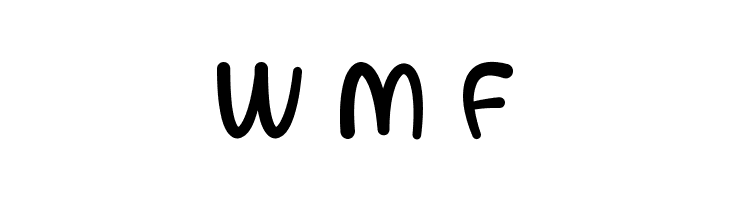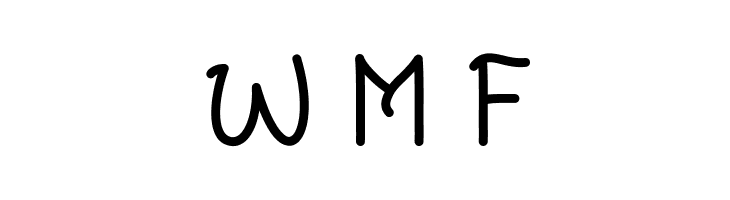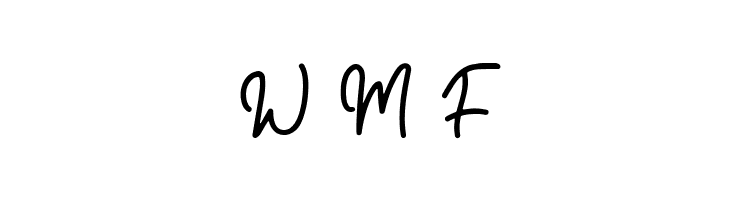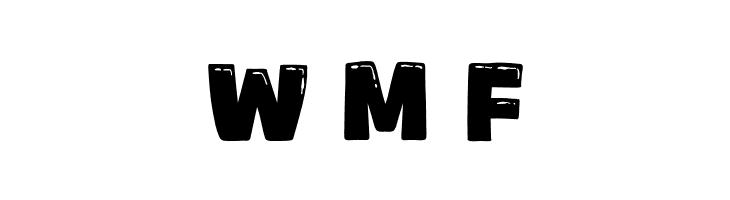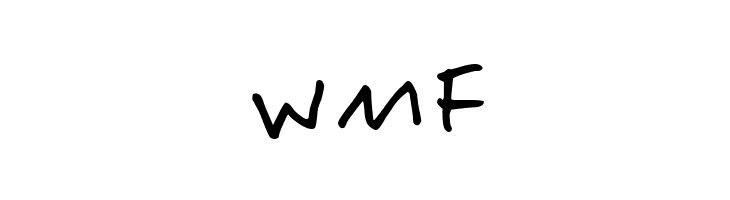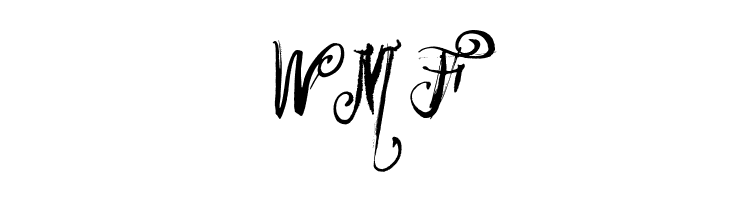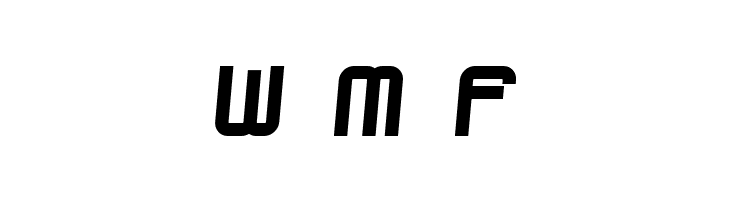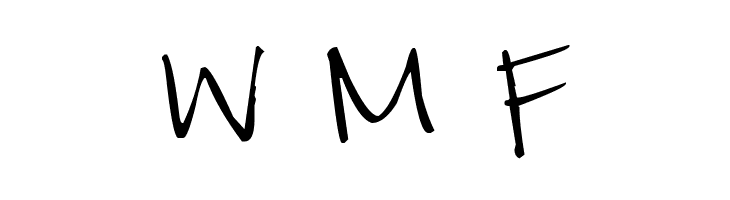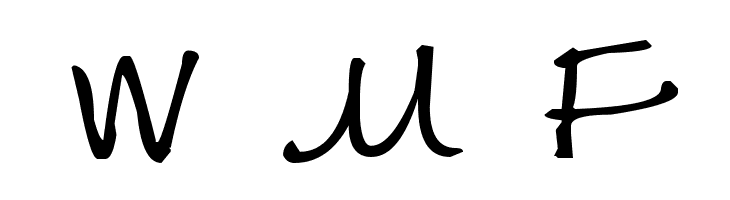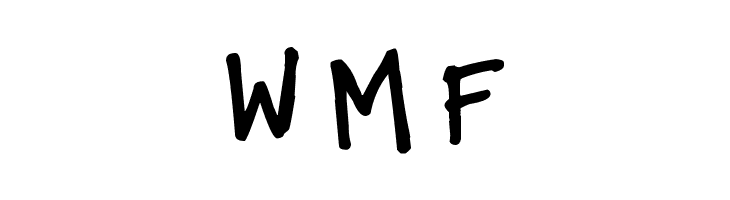
Vtks Relaxing Blaze Font
An expressive, artistic font with fluid, hand-drawn strokes.
Santai Relax Font
Font by Khurasan
A bold, playful font with a distressed texture and rounded characters.
Romanica Font
K-Type - Keith Bates - www.k-type.com/
A modern sans-serif font with clean lines and balanced proportions.
dopenakedfoul relaxed Font
A modern, geometric font with a sleek, futuristic design.
Relaxnes Font
Font by DumadiStyle
A playful, bold font with rounded, thick strokes and a whimsical touch.
Relax Font
Font by Scratchones
A playful, rounded font with smooth curves and a friendly appearance.
Get Relax Font
Font by nomlimofont
Playful handwritten font with a casual style.
dochi relaxed Font
Marios
A playful, handwritten font with a casual and relaxed style.
Relax Regular Font
A casual handwritten font with smooth, flowing lines and a playful, relaxed style.
Relaxnes Font
Font by DumadiStyle
A playful, bold font with rounded, flowing characters and a hand-drawn feel.
Enjoy and Relax Font
A playful, handwritten font with smooth, rounded edges and a casual flow.
Relax Regular Font
An elegant, flowing script font with decorative flourishes.
Relaxing Font
A playful, casual handwritten font with smooth curves and rounded edges.
Relaxing Font
A playful, informal handwritten font with smooth, flowing curves.